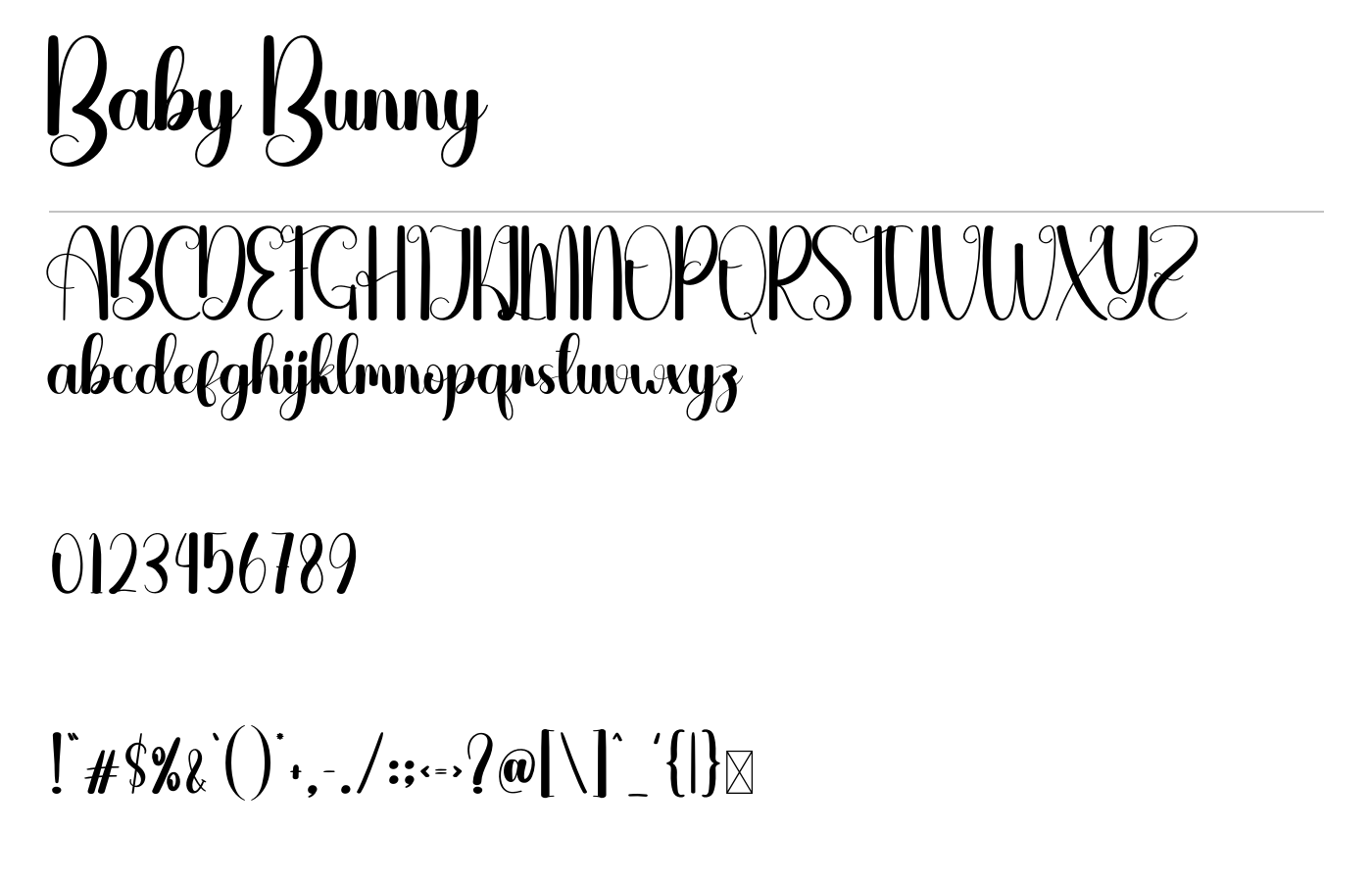
Baby Bunny Font is a playful and elegant script typeface featuring tall, narrow letterforms with delicate swirls and curves that add a whimsical charm. Its high contrast strokes and unique, decorative uppercase letters make it perfect for feminine branding, invitations, and creative projects that need a touch of personality and sophistication. This font works beautifully in headlines and logos where a fun yet refined look is desired.
Baby Bunny Font